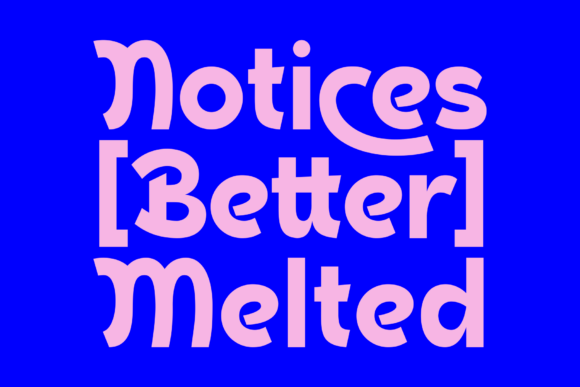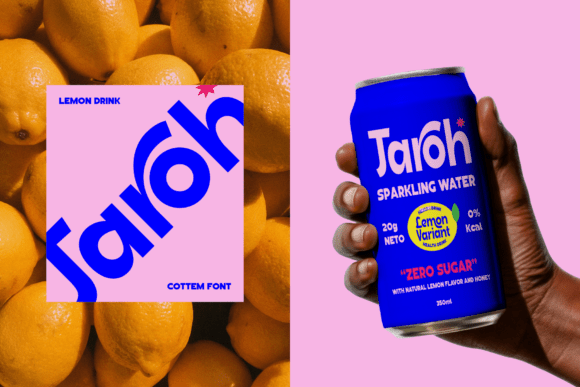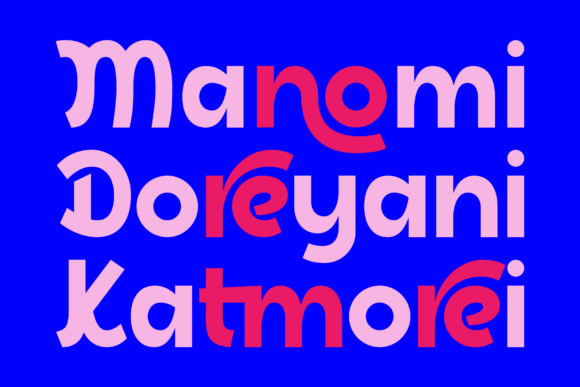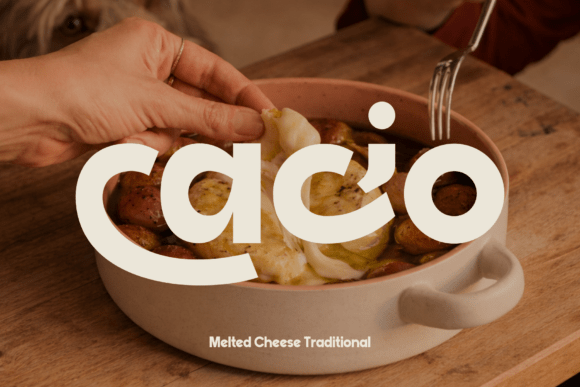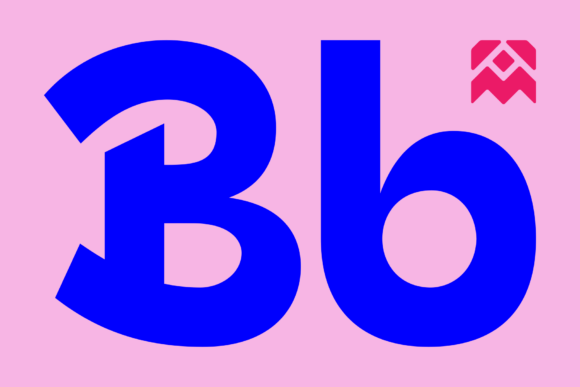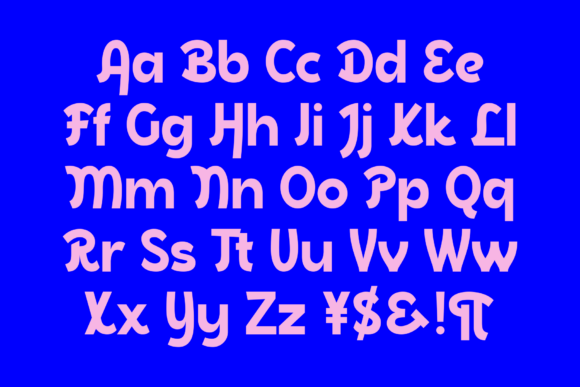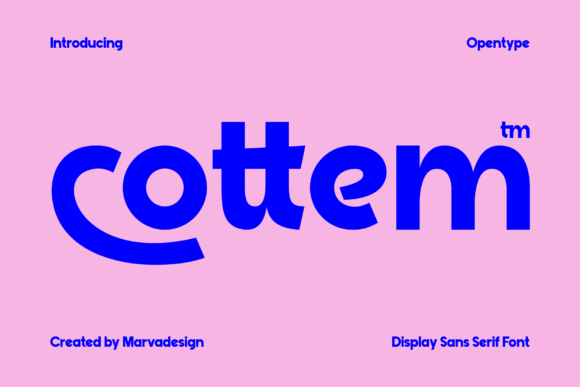
Cottem Font: A Bold Sans Serif Display Typeface
Introducing Cottem, a bold sans serif display typeface that embodies the perfect balance between robustness and friendliness. Designed to make a strong visual impact, Cottem is characterized by its consistent stroke thickness and rounded geometric construction, making it an ideal choice for designers and crafters looking for a font that exudes confidence and approachability.
Key Features of Cottem Font
- Consistent Stroke Thickness: Cottem’s bold and consistent stroke thickness gives it a robust and highly legible appearance, making it perfect for display use.
- Rounded Geometric Construction: The font’s rounded geometric construction adds a touch of warmth and friendliness, setting it apart from other bold sans serif typefaces.
- Wide Proportions and Gentle Curves: Cottem’s wide proportions and gentle curves create a strong yet approachable visual presence, making it easy to recognize and visually appealing.
- Soft Edges and Exaggerated Curves: The font’s soft edges and exaggerated curves add to its warm and friendly feel, making it an excellent choice for designs where a strong visual impact is crucial.
Multilingual Support and OpenType Features
Cottem font supports multilingual characters and OpenType features, providing design flexibility and broader usability across multiple languages. This feature makes it an excellent choice for designers working on international projects or those who need to create content for diverse audiences.
The font includes:
- Uppercase characters
- Lowercase characters
- Multilingual characters
- Ligatures
- Alternative characters
Use Cases for Cottem Font
Cottem font is primarily designed for display use, making it an excellent choice for:
- Headlines
- Packaging design
- Editorial layouts
Its bold and friendly appearance makes it perfect for designs where a strong visual impact is crucial, such as:
- Magazines and newspapers
- Web headers and titles
Why Choose Cottem Font?
Cottem font offers a unique combination of boldness and softness, making it an excellent choice for designers and crafters looking for a font that stands out from the crowd. Its multilingual support and OpenType features provide design flexibility and broader usability, making it a versatile font for various projects.
Whether you’re working on a branding project, designing a magazine layout, or creating social media graphics, Cottem font is an excellent choice. Its robust and friendly appearance makes it perfect for designs where a strong visual impact is crucial, and its wide range of file formats and characters ensures that it can be used across multiple platforms and languages.
In conclusion, Cottem font is a bold sans serif display typeface that offers a unique combination of robustness and friendliness. Its consistent stroke thickness, rounded geometric construction, and wide proportions make it highly legible and visually appealing. With its multilingual support and OpenType features, Cottem font is an excellent choice for designers and crafters looking for a versatile font that can be used across multiple projects and platforms.